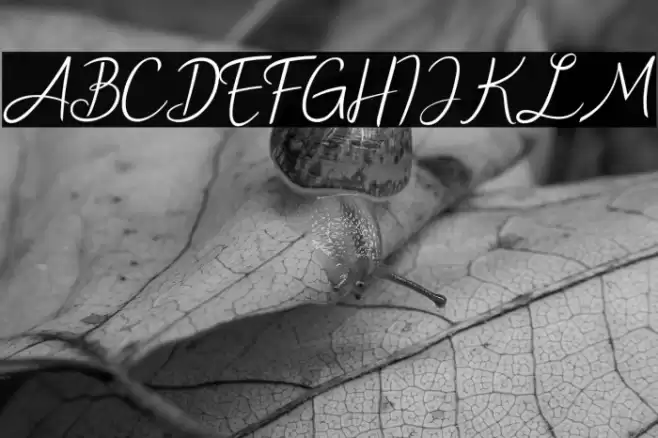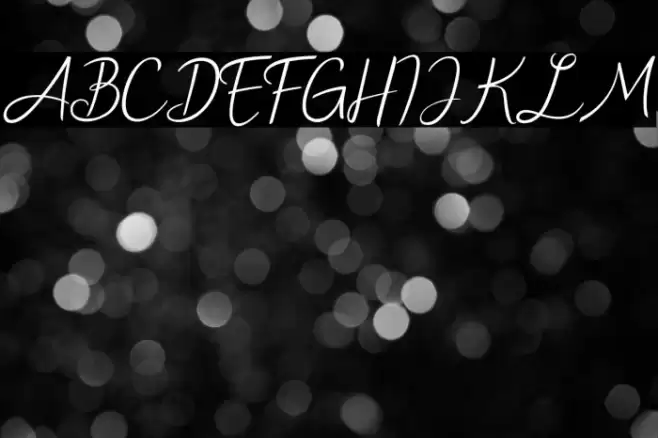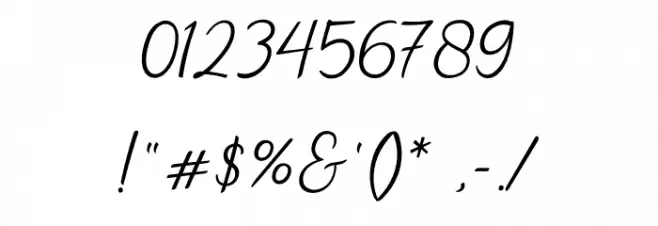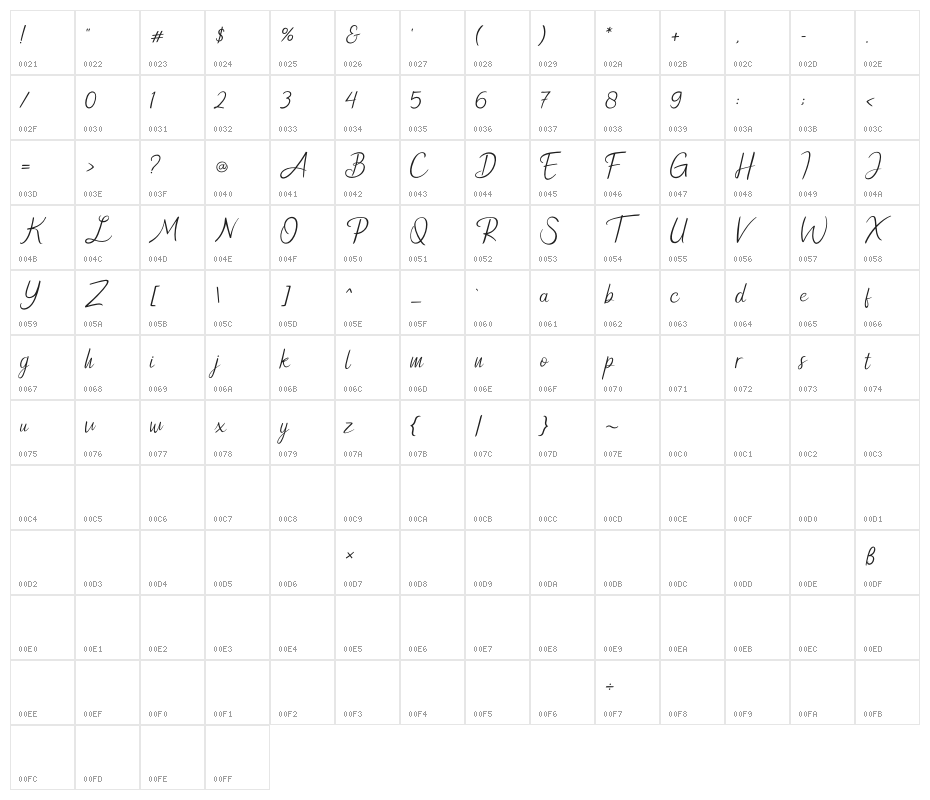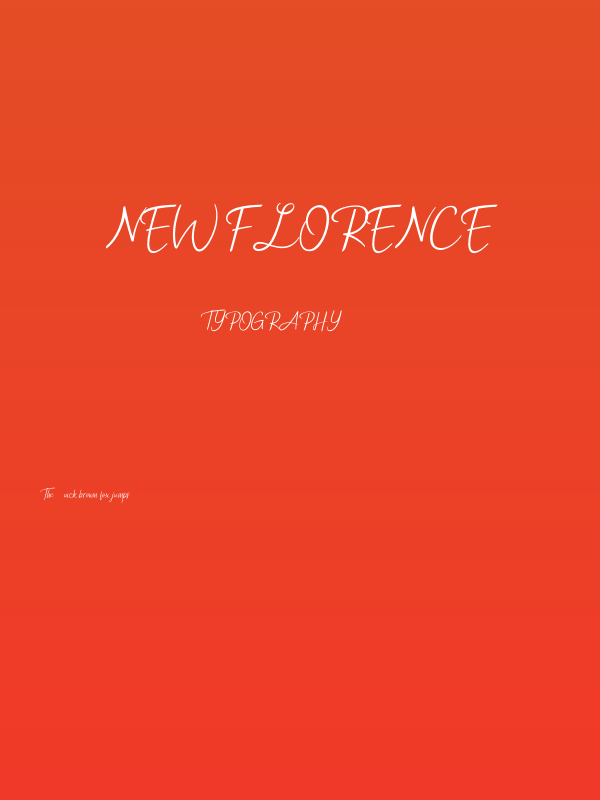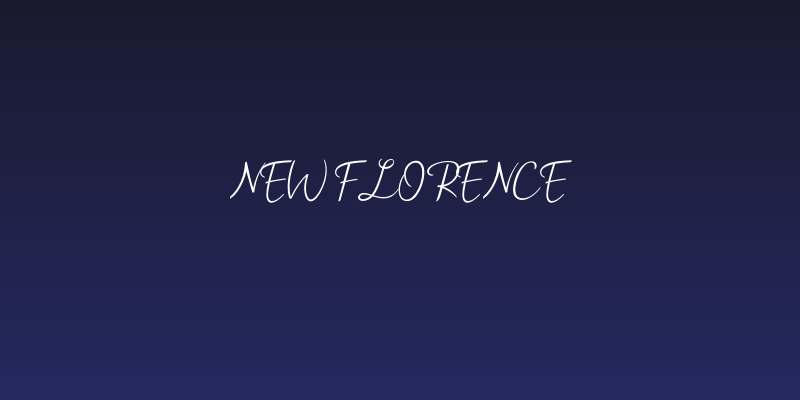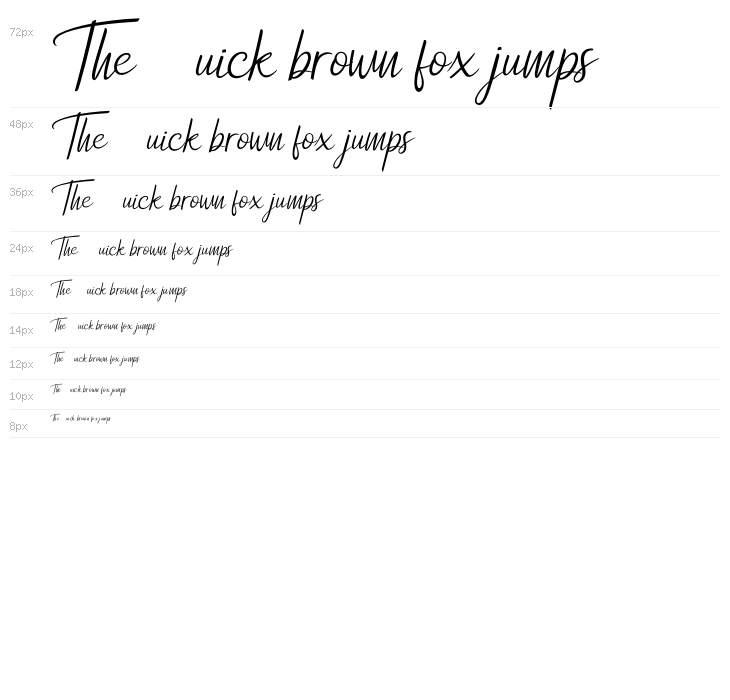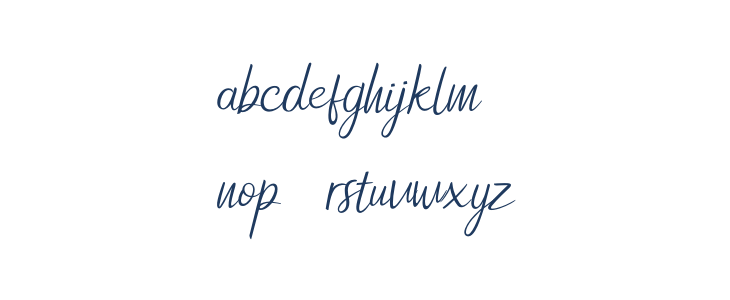
New Florence Font
New Florence Description
This elegant script font features a flowing, cursive style with smooth, sweeping curves and a refined aesthetic. The uppercase letters are tall and graceful, while the lowercase letters maintain a consistent fluidity, creating a harmonious balance. The numerals and special characters are designed with the same attention to detail, ensuring a cohesive appearance across all characters. The font's delicate strokes and subtle variations in thickness give it a sophisticated and artistic feel, making it suitable for projects that require a touch of elegance and class.
An elegant script font with flowing, cursive style and refined aesthetic from Uncategorized fonts.
- Font: New Florence
- Proposed Projects: Ideal for wedding invitations, elegant branding, greeting cards, and artistic projects.
- Overall Style: Elegant, Artistic
- Use Case: Logos, Invitations, Artistic projects